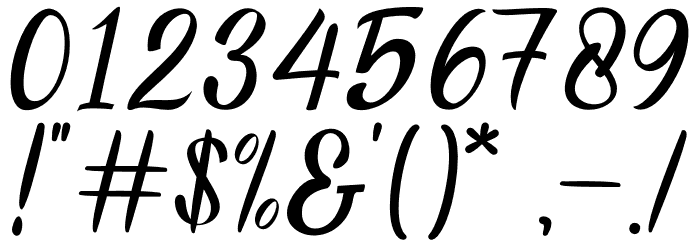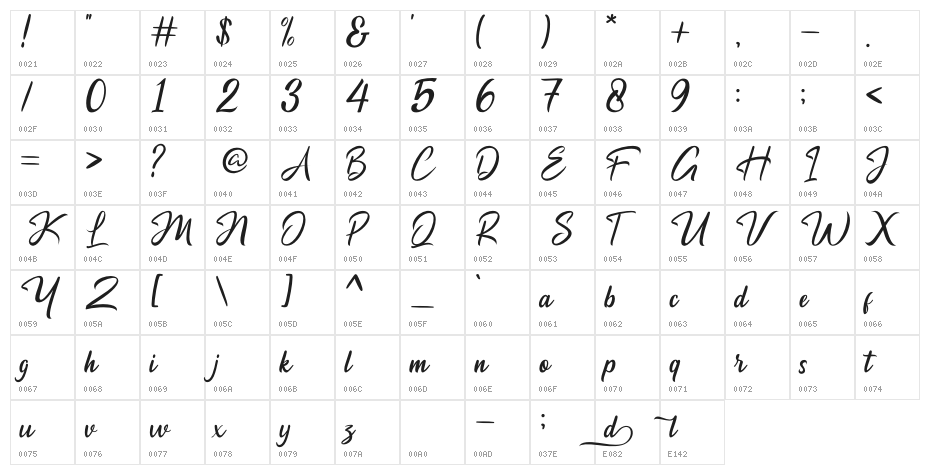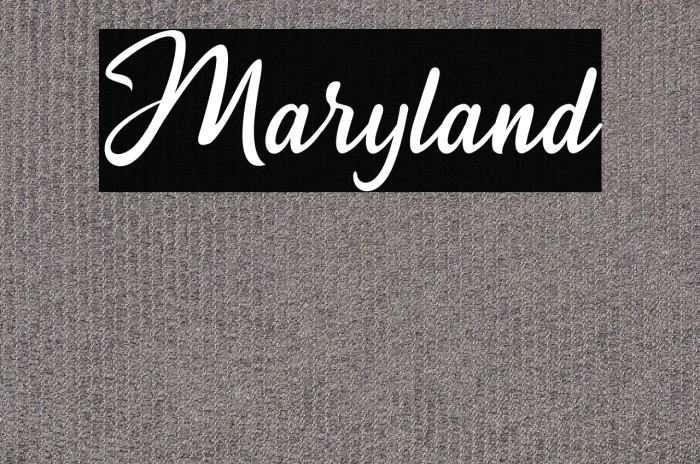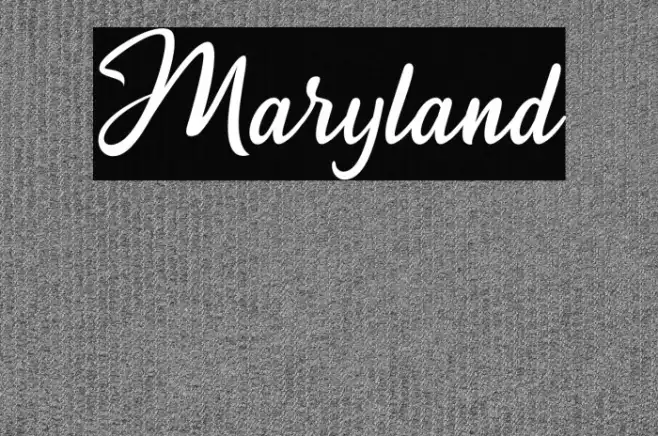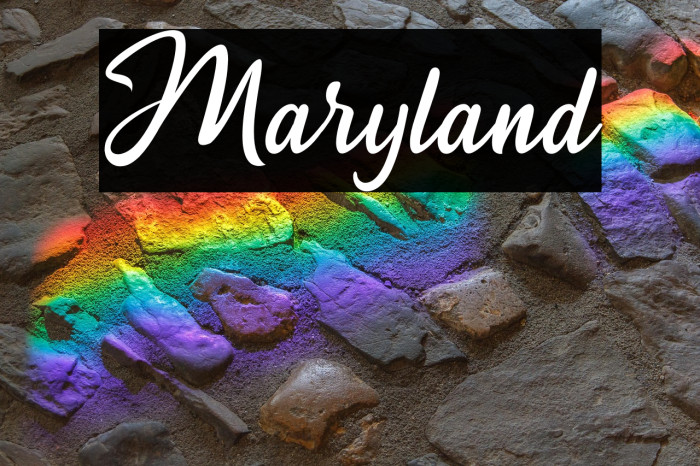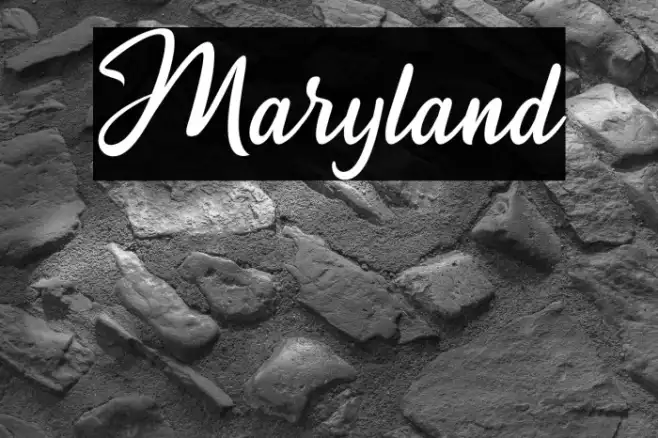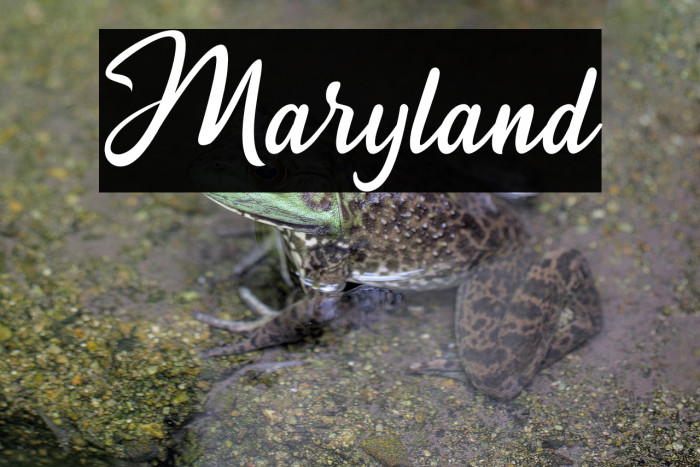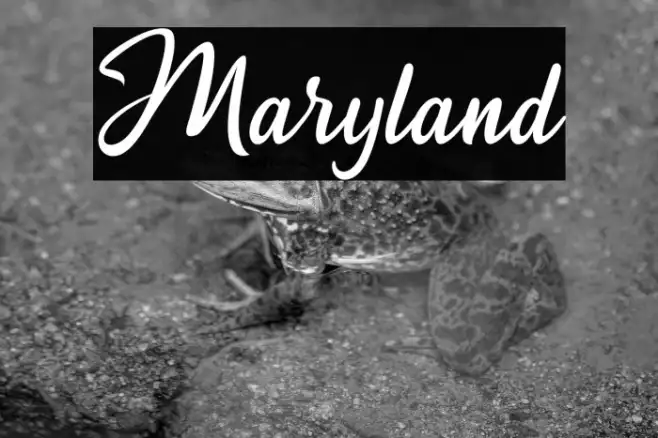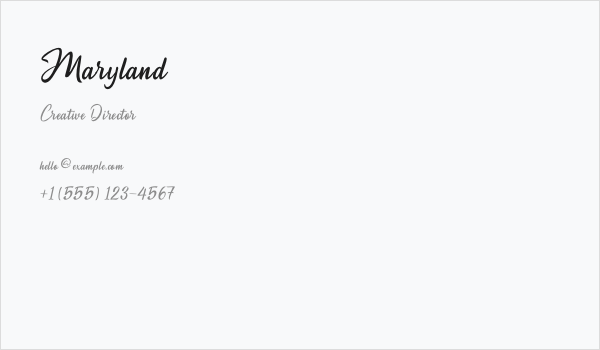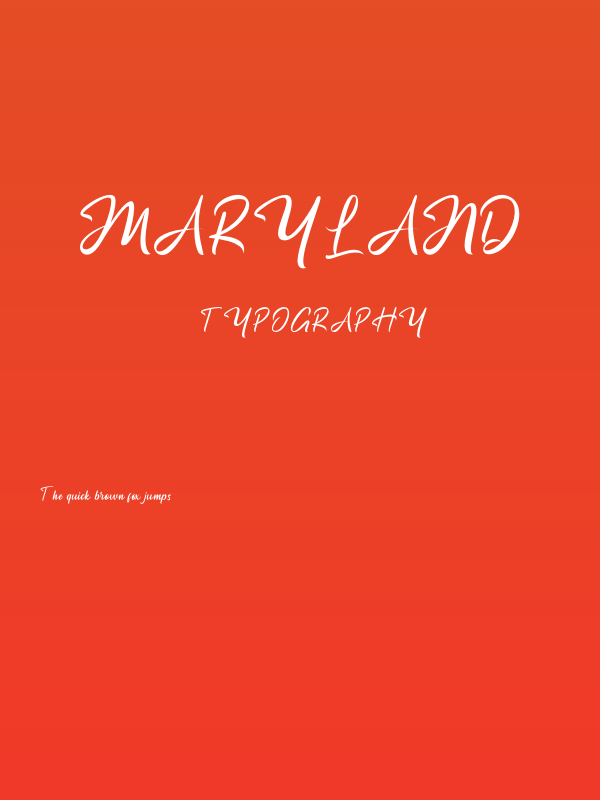
Maryland Font
Maryland Description
This font features a dynamic and flowing script style, characterized by its elegant cursive strokes and smooth transitions between letters. The uppercase letters are slightly more formal, with a graceful slant and consistent stroke width, while the lowercase letters exhibit a more casual and connected appearance. The numerals are bold and slightly italicized, maintaining the overall fluidity of the design. Special characters are integrated seamlessly, enhancing the font's versatility. The font's aesthetic is both sophisticated and approachable, making it suitable for a variety of creative applications.
| Proposed Projects | Ideal for wedding invitations, branding, greeting cards, and elegant signage. |